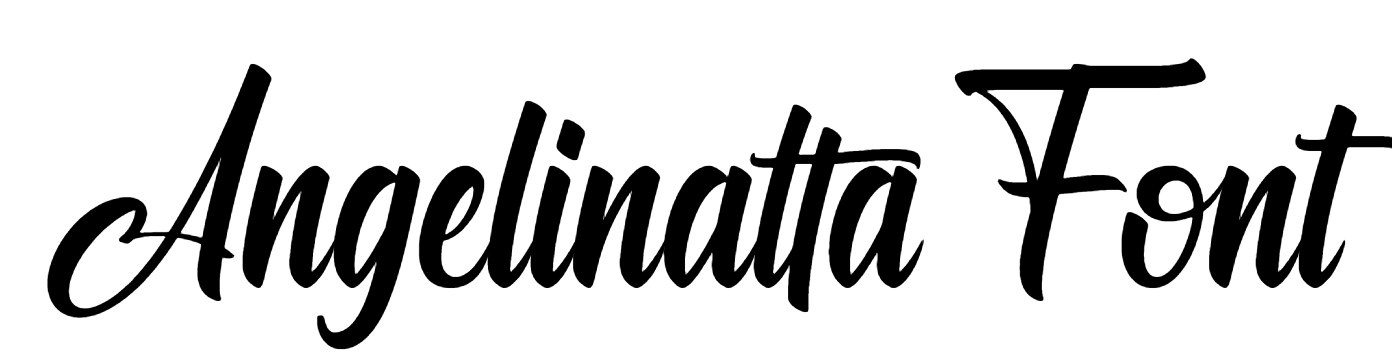
Angelinatta
Angelinatta is a calligraphy font designed by Ahmad Rofingi (2019). Its flowing, pen-made letters give names and short phrases a personal, polished look. It's a free download, and you can try it with your own text in the preview above first.
Angelinatta Font Details
- Designer: Ahmad Rofingi
- Glyphs: 434
- OpenType features: Ligatures, 6 stylistic sets and start and end letter forms
- Extra characters: 203 copy-and-paste alternates (Private Use Area)
What You Can Type With Angelinatta
Angelinatta covers the full alphabet in upper and lowercase, plus all ten numbers, so you can set names, dates and prices without switching fonts. Common punctuation such as &, !, ? and @ is included as well. It also has the accented letters you need for Spanish, French, German, Portuguese and Italian.
Where Angelinatta Works Best
Think of Angelinatta for wedding invitations, certificates and elegant quotes. Its lowercase letters are small compared to the capitals, so set it a size or two bigger than usual. Script fonts read best in short bursts, so keep it to names, titles and one-line quotes. Skip all caps: script capitals are drawn to start a word, not to fill one.
Does Angelinatta support accented letters?
Yes. Angelinatta includes the accented letters needed for Spanish, French, German, Portuguese and Italian, so it works for more than just English.